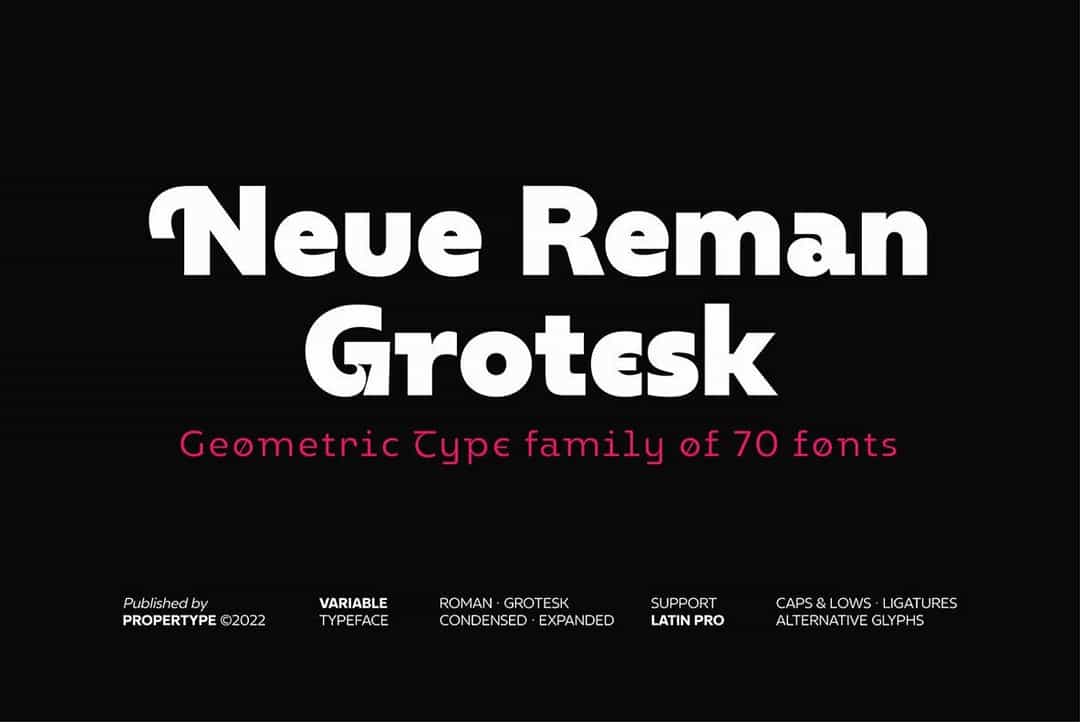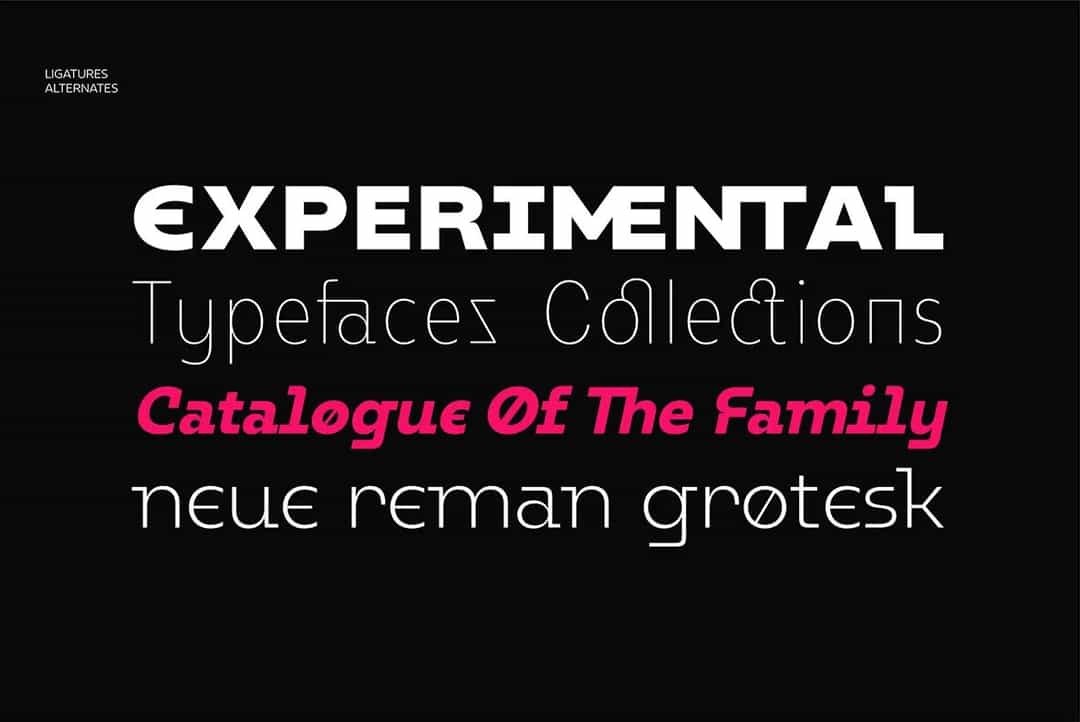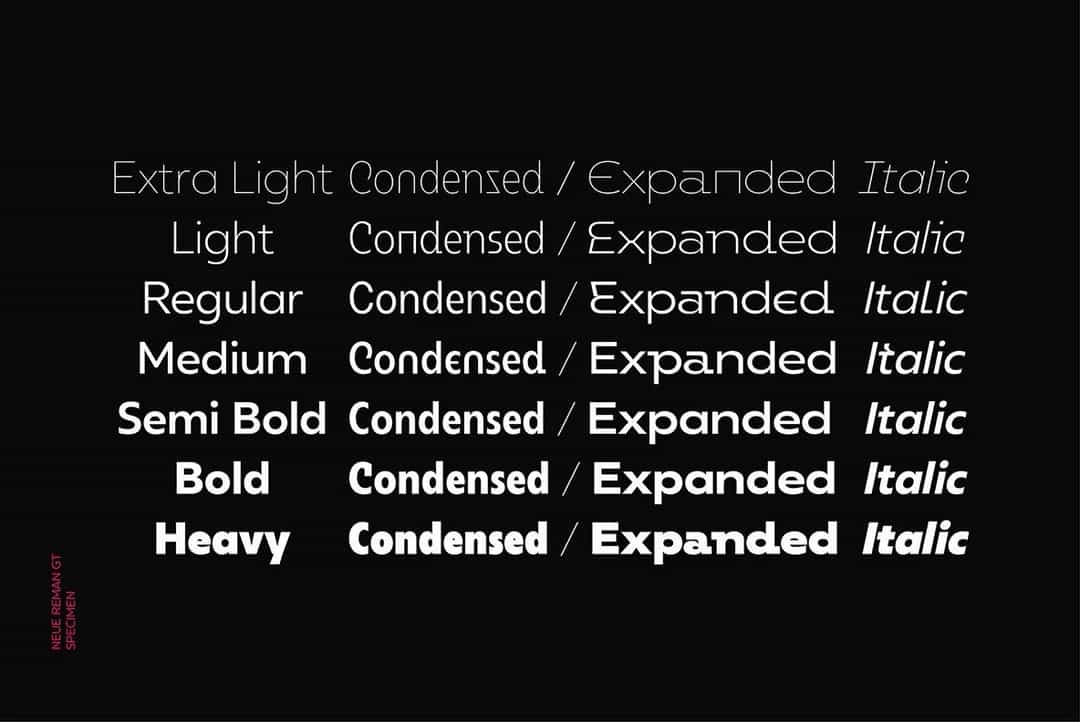
Neue Reman Grotesk features 750 glyphs, as well as Latin Pro Fonts that support over 192 languages. It is the second edition of the Neue Reman Family and offers Stylistic Alternates, Stylistic Set, Caps Swashes Letter, Standard Ligatures and discretionary Ligatures plus Tabular Figures Proportional Figures as well as Superscript Subscript Scientific Inferior Fractions Ordinals Arrows as well as other figures as well as fractions.